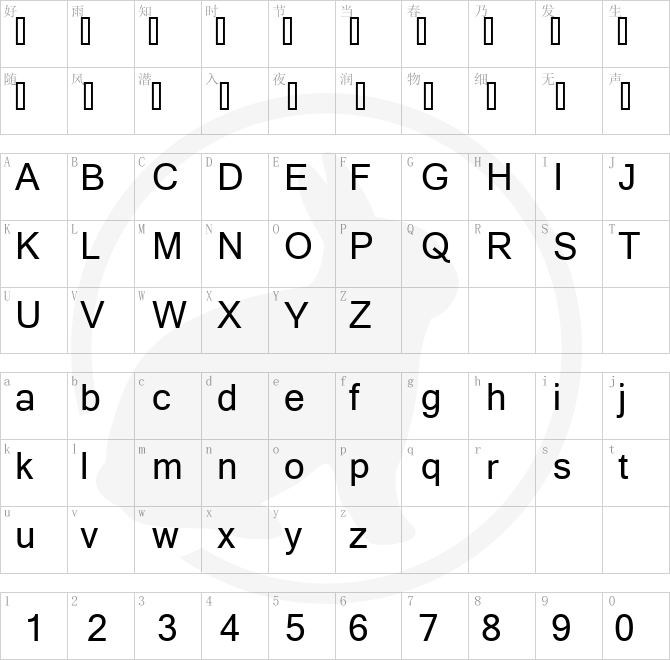
- Font Name:Yagora
Yagora.ttf is a very beautiful artistic font, Yagora.ttf is widely used in the design and printing of various books and pictures,Yagora.ttf has a strong visual impact,Yagora.ttf is a commonly used font in newspapers, magazines and books, and is used in posters, e-commerce Poster design, store design, logo design, font design and other fields.Yagora.